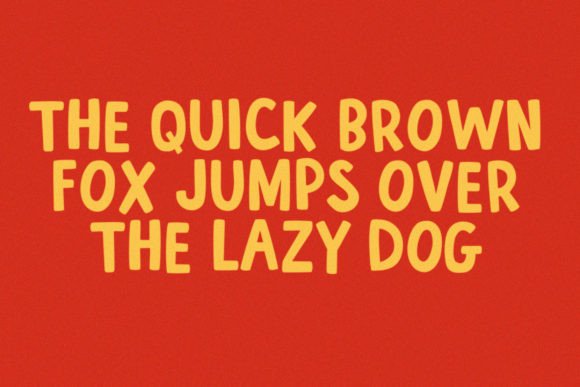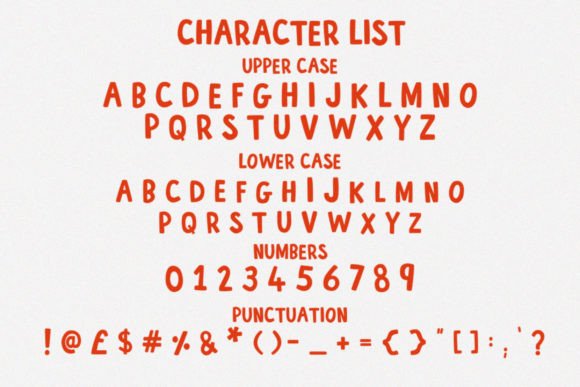
Introducing French Fries Font: The Perfect Addition to Your Design Collection
Are you tired of using the same old fonts in your designs? Do you want to add a touch of fun and quirkiness to your work? Look no further than the French Fries Font! This all-caps bold typeface is perfect for designers and crafters who want to create eye-catching and playful designs.
What is French Fries Font?
French Fries Font is a unique and doodley typeface that is sure to add a dash of personality to any design project. As an all-caps font, it’s perfect for creating bold and eye-catching text that demands attention. The font’s playful and quirky style makes it ideal for designs that require a bit of whimsy and fun.
What Can I Use French Fries Font For?
The possibilities are endless with French Fries Font! This versatile typeface can be used for a wide range of design projects, including:
• T-Shirt designs: Create bold and eye-catching tees that are sure to turn heads.
• Phone cases: Add a touch of personality to phone cases and make them stand out.
• Greeting cards: Create fun and playful greeting cards that are perfect for any occasion.
• Invitations: Make your invitations stand out with a bold and quirky font.
• Mugs: Add a dash of humor and personality to mugs and make them perfect for gifts.
Why Choose French Fries Font?
So why choose French Fries Font over other typefaces? Here are just a few reasons:
• Unique style: French Fries Font has a unique and playful style that’s sure to set your designs apart.
• Versatility: This font can be used for a wide range of design projects, from t-shirts to mugs.
• High-quality: This font is high-quality and comes with a range of features, including bold and clear lettering.
Tips for Using French Fries Font
Here are a few tips for getting the most out of French Fries Font:
• Experiment with colors: French Fries Font looks great in a range of colors, so don’t be afraid to experiment and find the perfect hue for your design.
• Pair with other fonts: Try pairing French Fries Font with other fonts to create a unique and eye-catching design.
• Use it sparingly: While French Fries Font is bold and eye-catching, it can be overwhelming if used too much. Use it sparingly to create a focal point in your design.
Get Creative with French Fries Font!
In conclusion, French Fries Font is a must-have for designers and crafters who want to add a touch of fun and quirkiness to their work. With its bold and playful style, it’s perfect for a wide range of design projects, from t-shirts to mugs. So why not give it a try and see what amazing designs you can create?